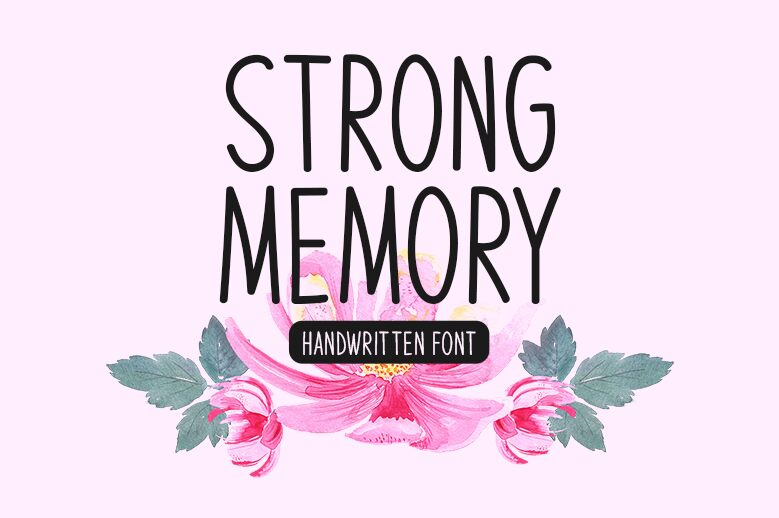
The Strong Memory font, crafted by designer Md Shohail Bhuian, embodies a distinct handwritten style with a light and condensed appearance. Its airy elegance makes it ideal for projects seeking a personal touch, such as invitations and artistic posters. The playful yet sophisticated lines capture attention without overpowering the design. With its unique charm, Strong Memory is perfect for creatives looking to bring warmth and character to their work.